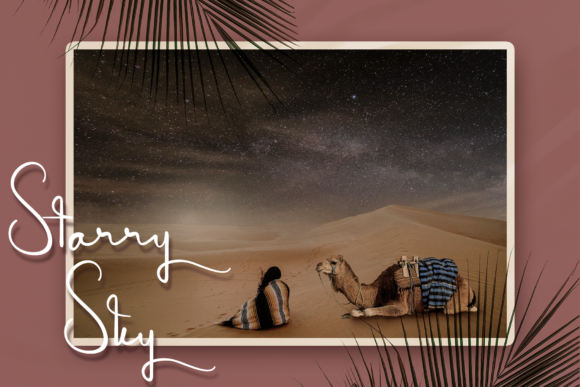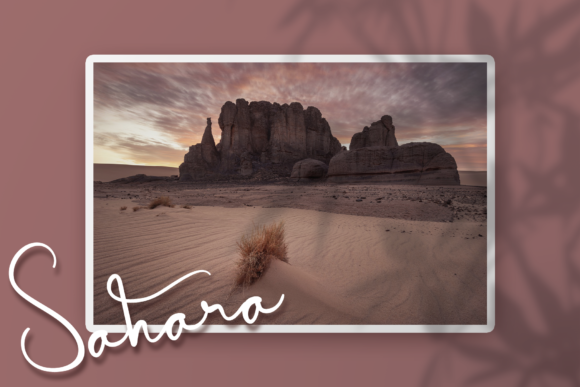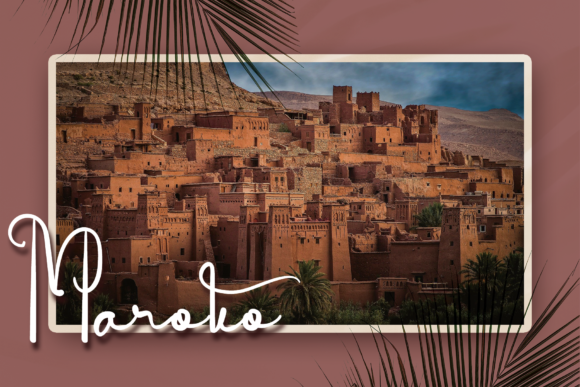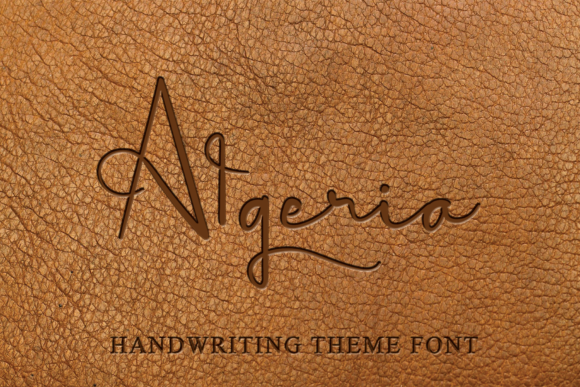
Introduction to Algeria Font
Algeria is a thin and cursive script font.
This font is neatly crafted and highly detailed Whatever the topic, this font will be a wonderful asset to your font library, as it has the potential to enhance any creation.
Algeria Font offers exceptional quality and versatility, making it a valuable addition to your design toolkit. Whether you’re creating for personal projects or commercial use, Algeria Font delivers professional results.